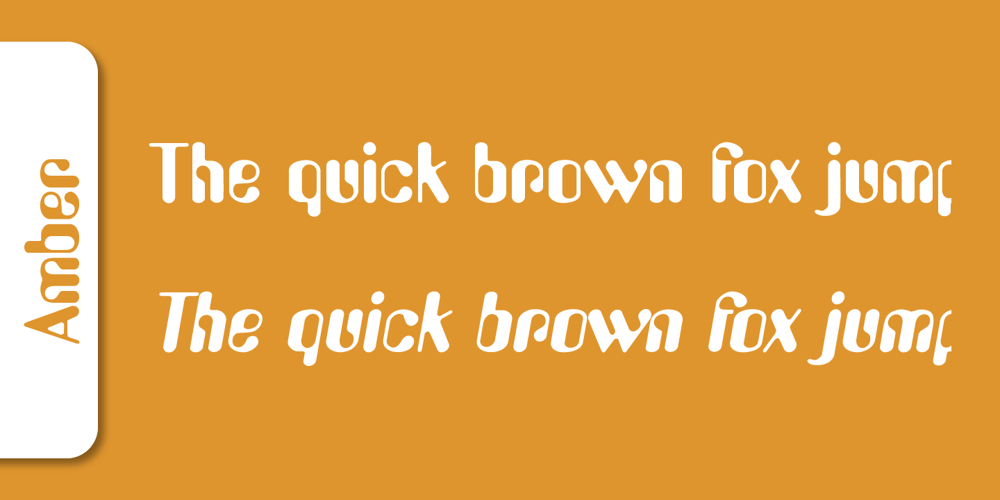
Amber
Amber font
Amber Font Family was designed by Stanley Davis and published by SoftMaker. Amber contains 2 styles and family package options. Amber is a decorative serif font published by SoftMaker.